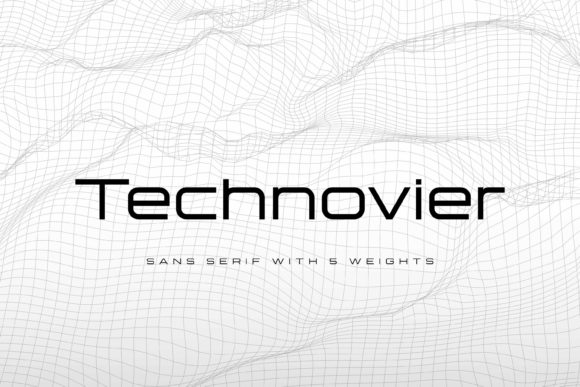
Welcome to the realm of visual expression, where typography meets imagination. Enter the world of Technovier, a sans serif font that transcends boundaries, leaving an indelible mark on your creative endeavors. With its clean lines and minimalistic charm, Technovier is the epitome of sophistication, transforming mere words into captivating statements.
Unleash your inner designer and let Technovier be your muse. This font is a versatile chameleon, effortlessly blending with an array of projects, from magazine logos that command attention to branding designs that exude timeless elegance. Its adaptability knows no limits, seamlessly flowing from digital screens to the printed page, leaving a lasting impression wherever it graces.
With Technovier as your creative ally, you'll discover a font that possesses an innate ability to elevate your designs to new heights. Its crisp edges and balanced proportions lend an air of professionalism and polish, ensuring your message is conveyed with the utmost clarity and impact.
But Technovier is more than just a visual masterpiece; it's an emotion weaver, a storyteller that captivates and engages. Its graceful curves and subtle nuances evoke a sense of intrigue and allure, inviting your audience to delve deeper into the world you've created. Let Technovier be the voice of your brand, whispering your message with undeniable charm and leaving an indelible mark on the hearts and minds of your audience.
So, embark on a typographic adventure with Technovier, a font that's ready to ignite your creativity and leave an indelible mark on the world. Embrace its versatility, revel in its elegance, and unlock the boundless possibilities that await you.